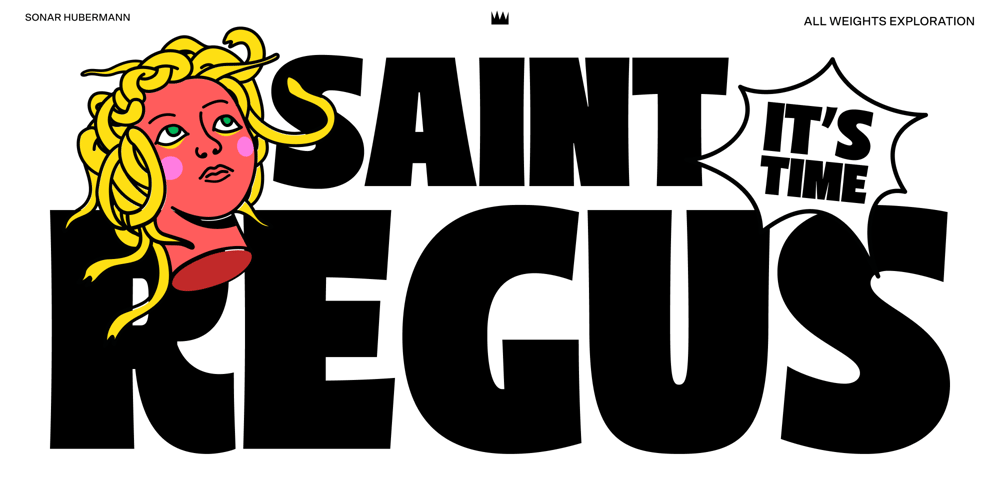
Saint Regus Font Family was designed by Wahyu Ichsan Fauzi and published by Sonar Hubermann. Saint Regus contains 21 styles and family package options. The story begin from Condensed, Standard & Expanded style. Saint Regus built and designed with a super family typeface in mind. Its still growing and growing by uniquely bold charismatic persona. The family itself have total 8148 glyphs with a standard glyphs and multilingual context.The possibilities are have a huge prospect in various design project, digital and print. Saint Regus development tried to explore the impact by its proportional display form.The project started from a Standard weights (Roman) and then it become a big families with 21 styles that you can use for a large design assets in any kind of design works.